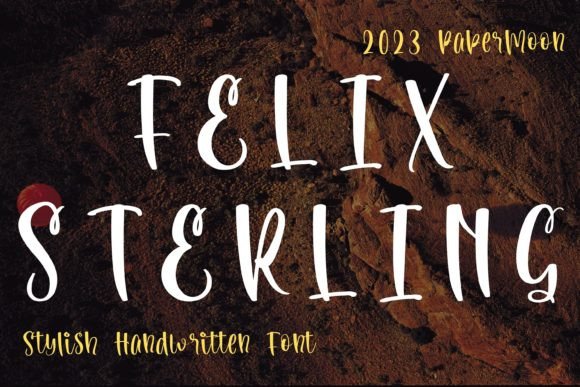
Let your designs exude captivating elegance with Felix Sterling Font, a masterpiece of calligraphy that oozes splendor in every character. Dive into the world of fashion and unveil the true essence of style as you unleash the beauty of Felix Sterling Font. Crafted with passion by PaperMoon, this font is not just a collection of letters, it's an expression of art, a true game-changer for fashion enthusiasts.
The Felix Sterling Font family, a mesmerizing script font, embodies the very essence of sophistication and artistry. It's the ultimate choice for fashion bloggers who want to elevate their content to new heights of chic. From accessories to architecture, from fashion to floristry, from homeware to jewelry, this font has the power to transform words into works of art. It's a font that speaks volumes, resonating with grace and elegance in every character.
With its comprehensive set of uppercase and lowercase letters, numbers, punctuation marks, symbols, ligatures, and swoosh elements, Felix Sterling Font opens up a world of creative possibilities. The character set is a visual masterpiece, meticulously designed with precise spacing and kerning, ensuring a flawless visual experience. Its versatility knows no bounds, embracing a wide range of projects from blog headers to invitations, labels to magazines, product packaging to stationery, titles to social media graphics, and beyond.
This font is a technological marvel, PUA encoded for effortless access to all its amazing glyphs and ligatures. Unleash the power of this font with ease, and watch your designs come alive with a captivating charm that will leave your audience spellbound.
Felix Sterling Font is not just a font, it's a statement. It's the voice of fashion, the language of elegance, the expression of grace. It's the perfect companion for fashion bloggers, designers, and anyone who wants to infuse their designs with a touch of timeless elegance. Don't miss this opportunity to own this extraordinary font and elevate your designs to the realm of true artistry.